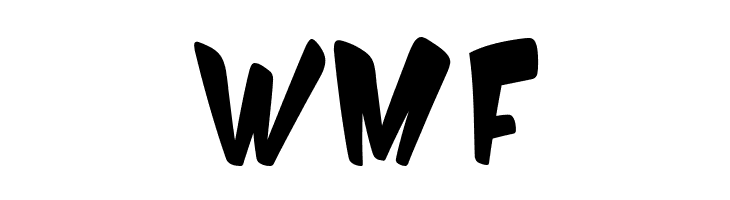
Welcome to our Top Fonts section — where popularity meets quality. These are the fonts most downloaded, shared, and used by designers across the world this year. Whether you’re working on branding, web design, or social media visuals, this curated list helps you pick fonts that already resonate with millions of users.
Each top-rated font stands out for its design balance, readability, and versatility. You’ll find everything from modern sans serifs to elegant scripts, vintage serifs, and minimalist displays. If you’re unsure where to start, the Top Fonts section is your shortcut to tried-and-true typefaces that simply work.
• Horny Devils BV Font
A playful, devil-themed font with cartoonish, hand-drawn elements.
• Technique BRK Font
A bold, futuristic font with rounded, geometric letterforms and dynamic cut-out sections.
• Public Sans Light Italic Font
A modern, light, italic sans-serif font with balanced spacing and clean lines.
• Ranille Normal-Regular Font
A classic serif font with bold strokes and elegant curves.
• Graffiti City Font
A bold, graffiti-inspired font with a dynamic and urban style.
• Giza Stencil CAPS Font
A bold, geometric stencil font with strong industrial appeal.
• Mukta Medium Font
A modern sans-serif font with balanced proportions and smooth curves.
• HopelessHeartDEMO Font
A bold, expressive serif font with playful curves and strong presence.
• SnapHand Font
A bold, playful handwritten font with rounded edges.
• Neptunus Font
A bold, playful font with rounded edges and a hand-drawn feel.
What are the top fonts right now?
Designers love Horny Devils BV, Technique BRK, Public Sans Light Italic, Ranille Normal-Regular and Graffiti City for their clean forms and broad use cases — from brand identities to landing pages and posters.
Which fonts are most popular for logos?
Geometric Sans Serifs (e.g., Poppins, Gotham-style families) are common for clean, scalable branding. For a friendly tone, script and handwritten styles remain evergreen. Pair a bold headline font with a neutral body font for balance and recognition.